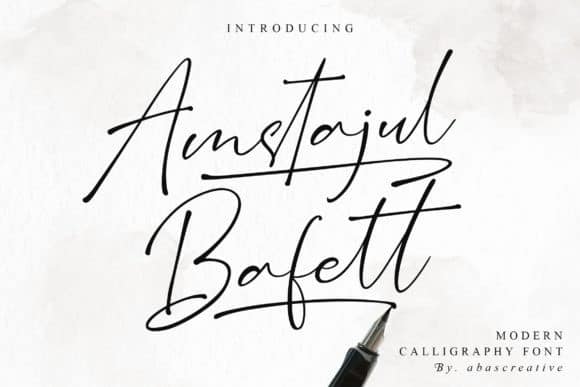
Amstajul Bufett Handwritten Font
Amstajul Bufett Handwritten Font was created to look as close to a natural handwritten script as possible by including lowercase alternates, lowercase swash, ligature and underlines. Mix and match lowercase regular with several lowercase alternatives to get your new ligature.
It’s the perfect choice for wedding invitations, stationery, photography, social media posts, product packaging, greeting cards, and much more! This font is PUA encoded which means you can access all of the glyphs and swashes with ease!